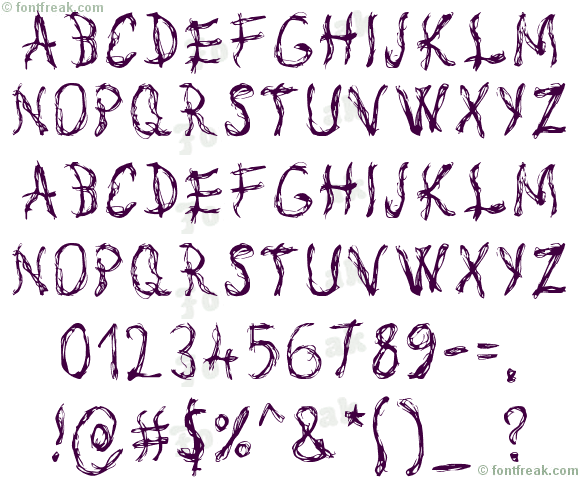
Depres
About Depres
The Depres font, designed by GGBot, is a striking display typeface that embodies a unique blend of artistry and character. This decorative font features intricate, whimsical elements that give it a handcrafted feel, making it perfect for creative projects that require a personal touch. With its irregular stroke weight and organic forms, Depres has a playful yet sophisticated charm. The contrast in line thickness adds depth, while the spacing between letters enhances readability, allowing it to stand out without overwhelming the viewer.
Depres is versatile and can be effectively used in various contexts. Its distinctive appearance makes it an excellent choice for wedding invitations, where it can evoke romance and elegance. Additionally, it shines in creative marketing materials, such as restaurant menus that aim to convey a unique dining experience. Movie posters can also benefit from the font's engaging style, drawing attention and setting the tone for the film. Content creators looking to add flair to their digital projects will find Depres to be a refreshing alternative to standard typefaces, enriching blogs and social media graphics.
What truly sets the Depres font apart is its ability to blend artistic uniqueness with functionality. It invites users to express their individuality while maintaining a level of professionalism that is crucial in design. This makes the Depres font a valuable addition to any designer's toolkit.